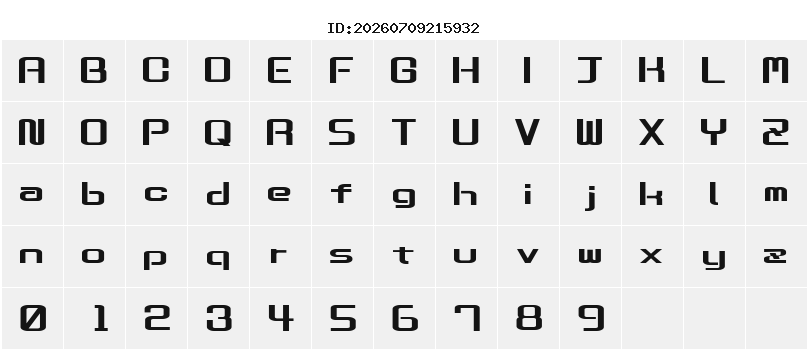
DD hero Preview
• Font Name: DD hero
• Font ID: Macromedia Fontographer 4.1J DD hero Bold
• Full Font Name: DD hero Bold
• Version: Macromedia Fontographer 4.1J 00.6.2
• PostScript Name: DDheroBold
• Copyright: Copyright Shuichi Ono from Denenchofu Design 2000 HERO‐Bold v0.5
About DD hero.ttf
DD hero.ttf is a modern, elegant sans-serif font designed for ultimate readability and visual harmony. Perfect for branding, headlines, web design, and print materials.